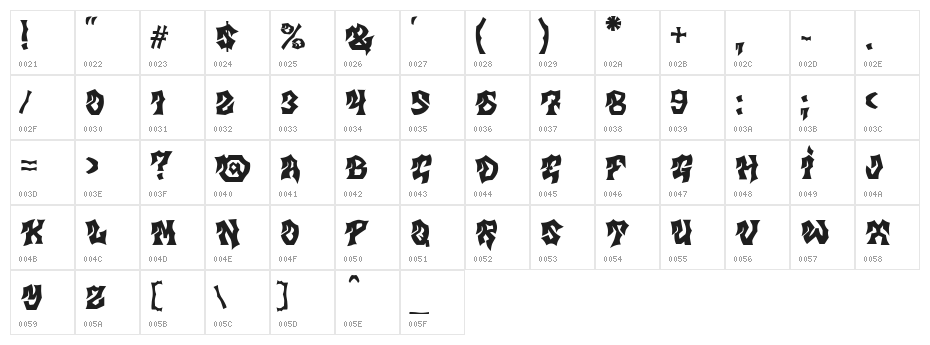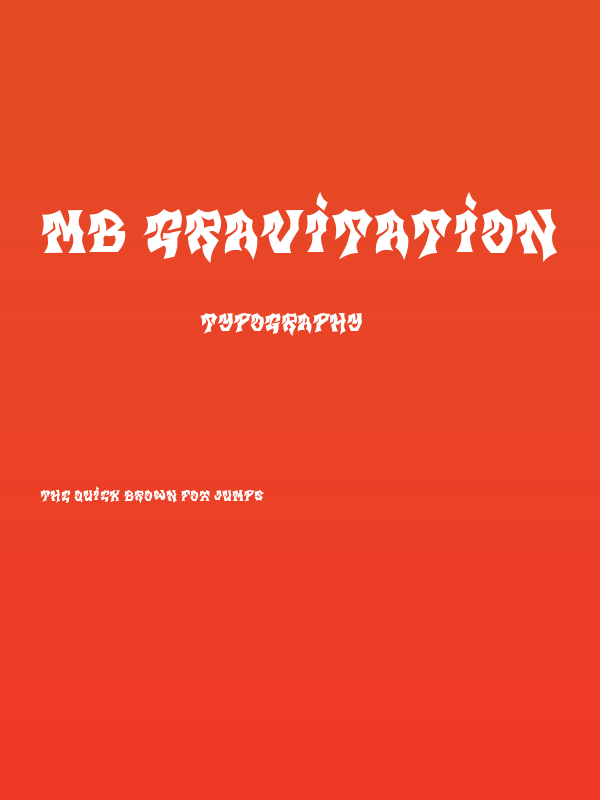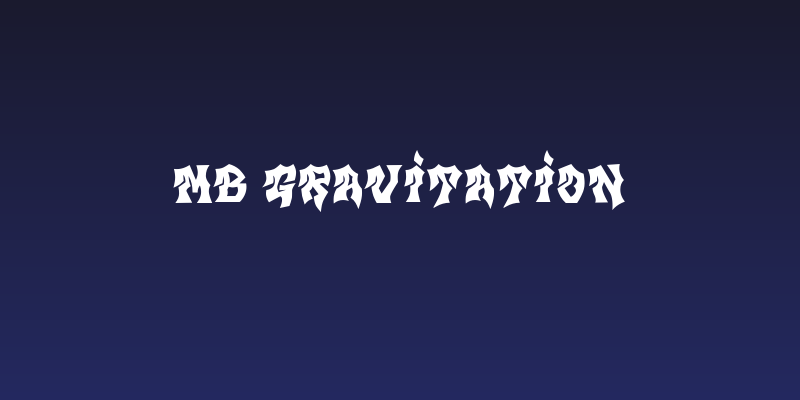
MB Gravitation Font
MB Gravitation Description
This font features a bold and dynamic design with sharp, angular edges and a distinct geometric style. The characters are heavily stylized, creating a sense of movement and energy. The uppercase and lowercase letters maintain a consistent aesthetic, with each character exhibiting unique cuts and angles that contribute to the overall edgy appearance. The numbers and special characters follow the same design principles, ensuring a cohesive look across all elements. This font is ideal for projects that require a strong visual impact and a modern, unconventional feel.
Proposed ProjectsPerfect for posters, album covers, video game graphics, and branding that requires a bold statement.